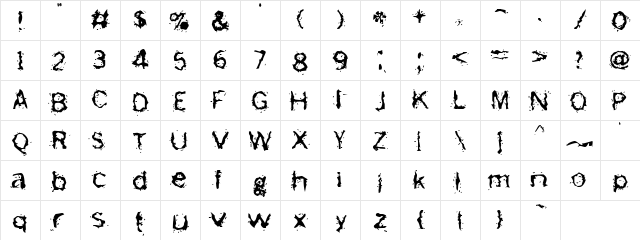
Complete Freemason Blah glyph index. Displaying only characters natively supported by Freemason Blah font.
Freemason is a composed and adaptable typeface that performs quietly and consistently across a wide range of design contexts.